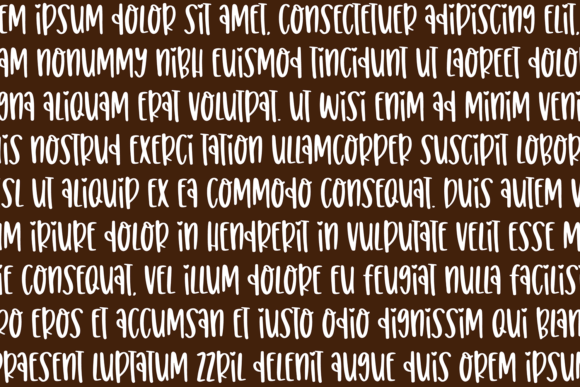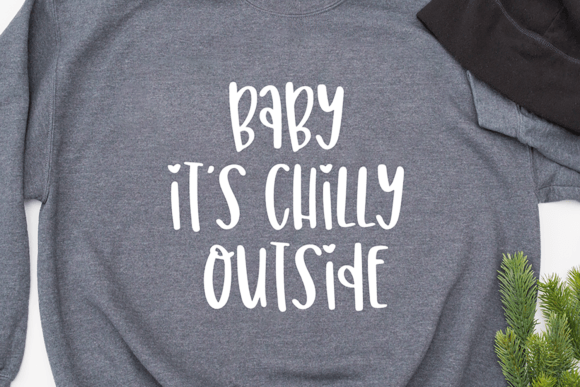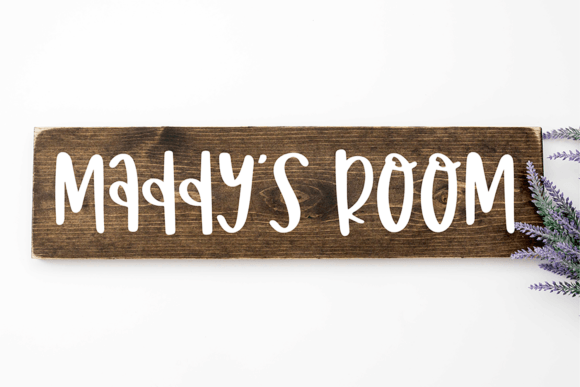
BFC Chocolate Cupcakes: The Sweetest Font for Your Crafty Projects
Are you a designer, crafter, or DIY enthusiast looking for a font that’s as sweet as it is versatile? Look no further than BFC Chocolate Cupcakes, a casual script brush font that’s perfect for a wide range of creative projects. In this article, we’ll dive into the details of this delightful font and explore its many uses, from social media graphics to crafty decor and beyond.
What is BFC Chocolate Cupcakes?
BFC Chocolate Cupcakes is a whimsical brush font that’s designed to evoke the feeling of hand-painted or handwritten text. With its soft, flowing strokes and playful vibe, this font is sure to add a touch of warmth and personality to any project. Whether you’re creating a brand identity, designing an invitation, or crafting a decorative piece, BFC Chocolate Cupcakes is the perfect choice.
Key Features of BFC Chocolate Cupcakes
So, what makes BFC Chocolate Cupcakes so special? Here are just a few of its key features:
- Whimsical brush strokes: BFC Chocolate Cupcakes features soft, flowing brush strokes that give it a hand-painted feel.
- International characters: This font includes a range of international characters, making it perfect for projects that require a little extra flair.
- Numbers and punctuation: BFC Chocolate Cupcakes includes numbers, basic punctuation marks, and other essential characters.
- Casual script style: This font has a relaxed, casual vibe that’s perfect for social media graphics, crafts, and other creative projects.
Uses for BFC Chocolate Cupcakes
So, what can you use BFC Chocolate Cupcakes for? The possibilities are endless! Here are just a few ideas to get you started:
- Social media graphics: Add a touch of personality to your social media posts with custom graphics featuring BFC Chocolate Cupcakes.
- Crafty decor: Use this font to create custom signs, banners, and other decorative pieces for your home or office.
- Invitations and announcements: Make your invitations and announcements stand out with BFC Chocolate Cupcakes’ playful, whimsical style.
- Branding and packaging: Use this font to create custom branding and packaging for your business or product.
- DIY projects: BFC Chocolate Cupcakes is perfect for a wide range of DIY projects, from crafting and scrapbooking to woodworking and more.
Tips for Using BFC Chocolate Cupcakes
Here are a few tips for getting the most out of BFC Chocolate Cupcakes:
- Experiment with colors: BFC Chocolate Cupcakes looks great in a wide range of colors, from bright and bold to soft and pastel.
- Mix and match: Try pairing BFC Chocolate Cupcakes with other fonts or graphics to create a unique look.
- Keep it simple: Don’t be afraid to keep things simple and use BFC Chocolate Cupcakes on its own – it’s a beautiful font that can stand on its own.
BFC Chocolate Cupcakes is a sweet and versatile font that’s perfect for designers, crafters, and DIY enthusiasts. With its whimsical brush strokes, international characters, and casual script style, this font is sure to add a touch of personality to any project. Whether you’re creating social media graphics, crafty decor, or custom branding and packaging, BFC Chocolate Cupcakes is the perfect choice. So why wait? Download BFC Chocolate Cupcakes today and start creating your own sweet treats!